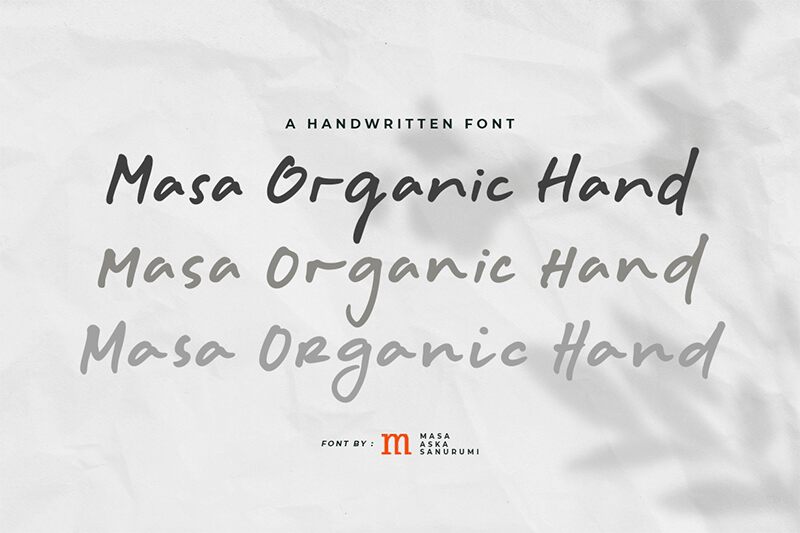
Masa Organic Hand
Masa Organic Hand font by Masa Aska Sanurumi is a free handwritten font with organic, stylish strokes. It showcases natural letterforms and has a legible yet personal appearance. This font offers a charming rustic style and it creates an earthy authentic tone that gives the audience the impression of elegance that’s easily visible at first glance.